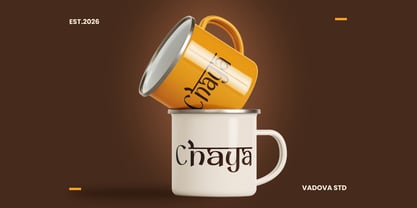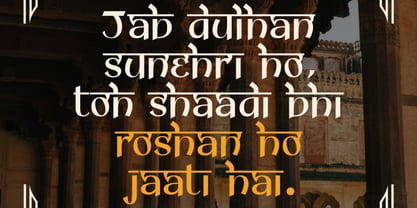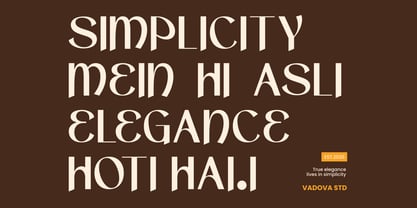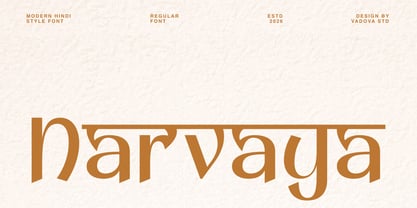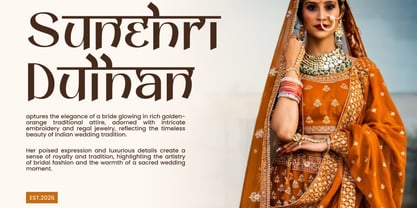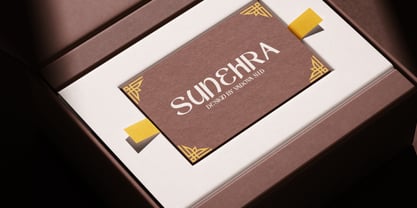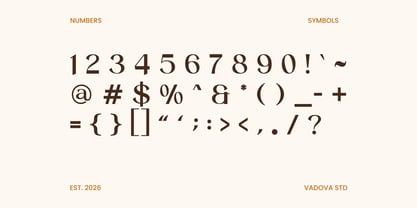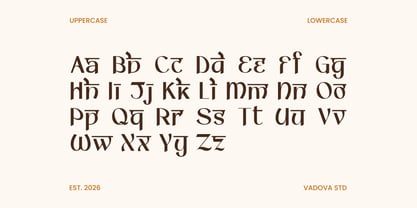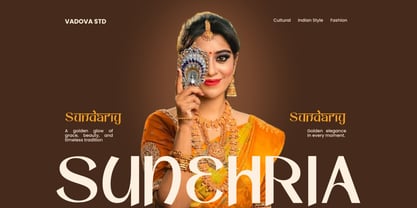
Narvaya
by Vadova Std
The Narvaya Font Family and published by Vadova Std. Narvaya contains 1 styles. More about this family
Narvaya is a modern serif font inspired by Hindi typographic forms, blending cultural character with a clean contemporary structure. The design features distinctive horizontal headline elements, unique letter constructions, and refined serif details that create a strong visual identity. It includes uppercase, lowercase, numerals, punctuation. Narvaya is highly relevant for design projects that aim to combine cultural identity with modern aesthetics. It works well for branding, packaging, editorial layouts, and visual campaigns that highlight heritage-inspired visuals with a contemporary touch. The distinctive headline and ornamental serif style make it especially effective for logos, posters, and display compositions that need a unique and memorable typographic presence.